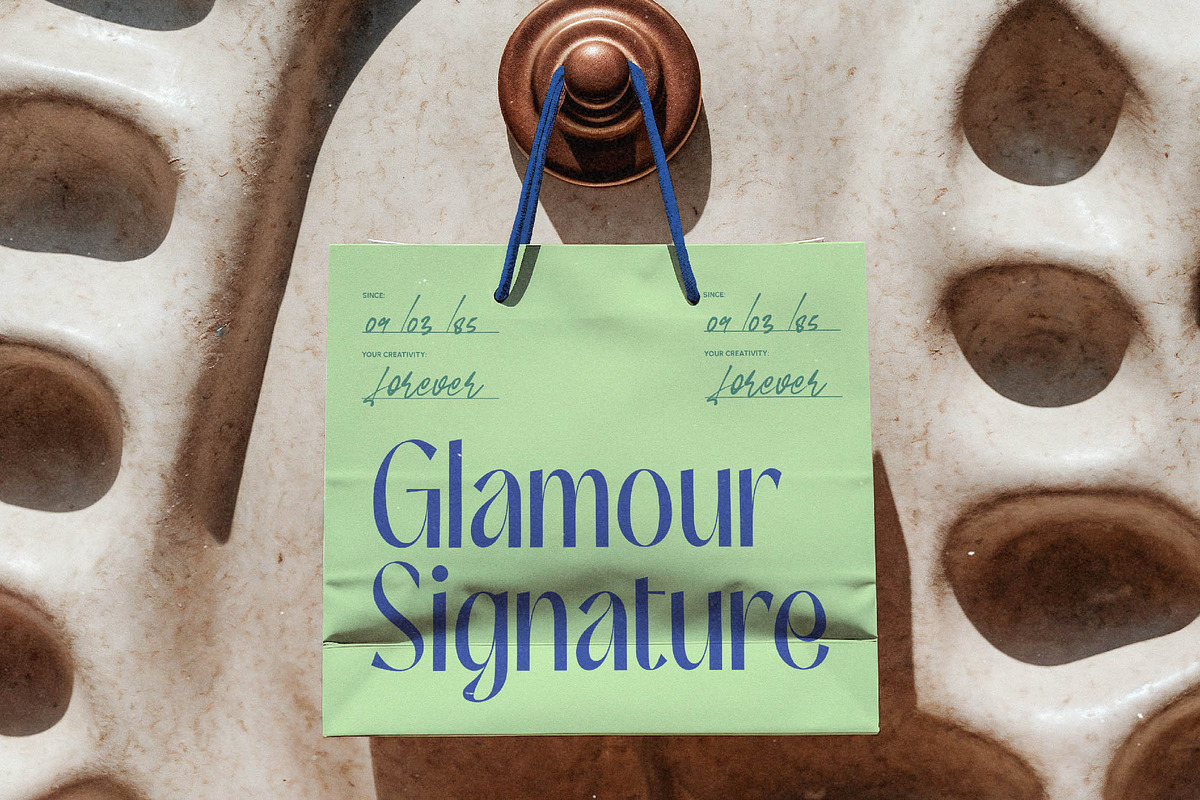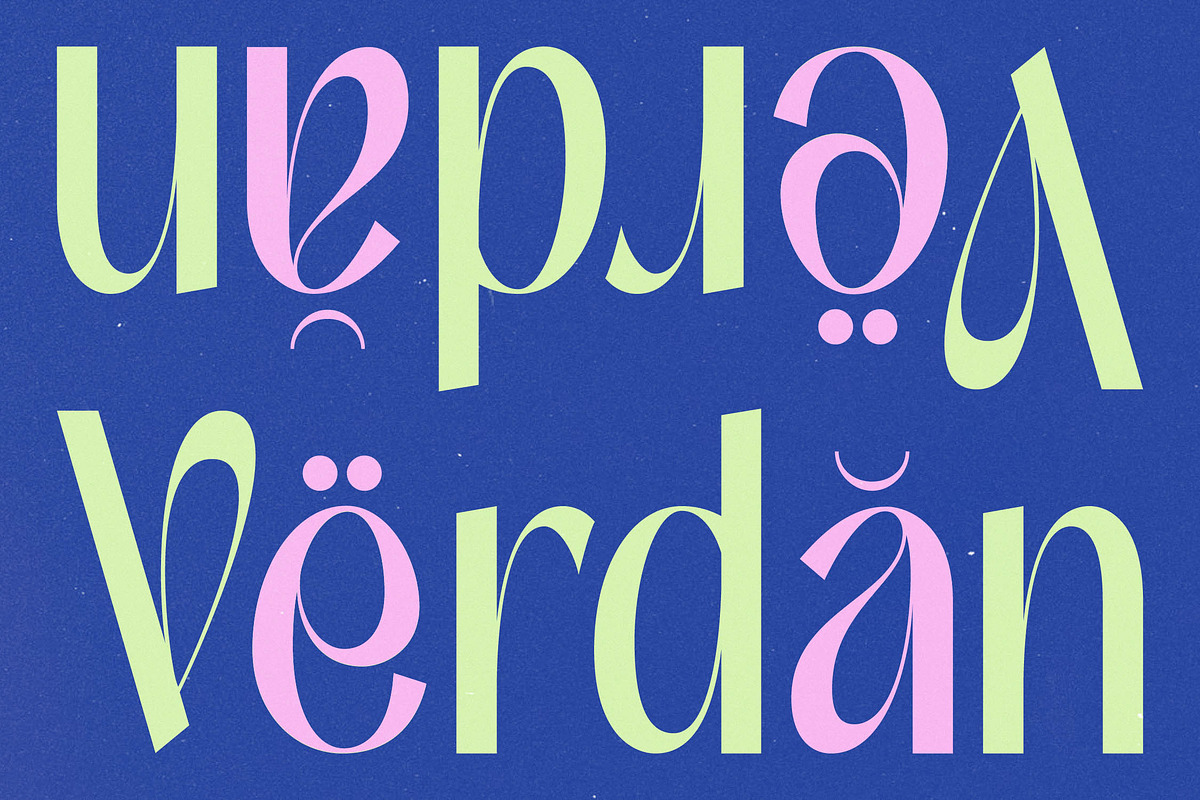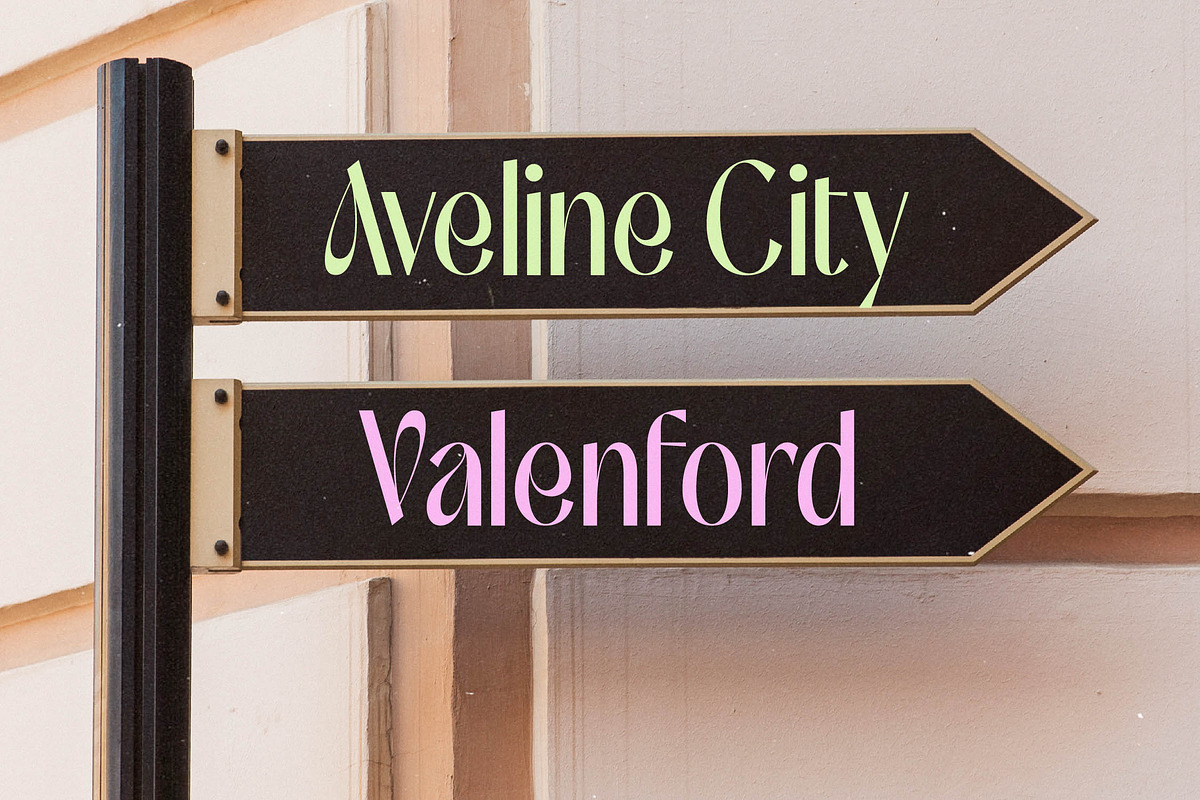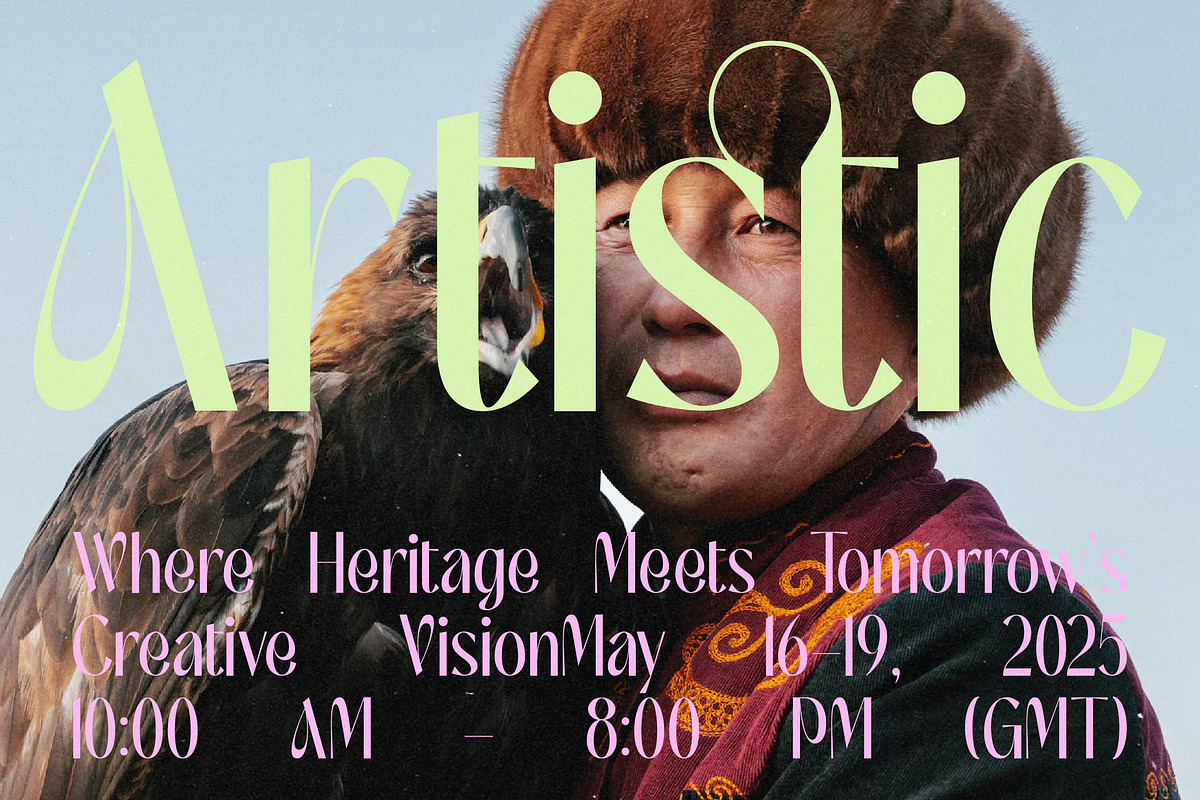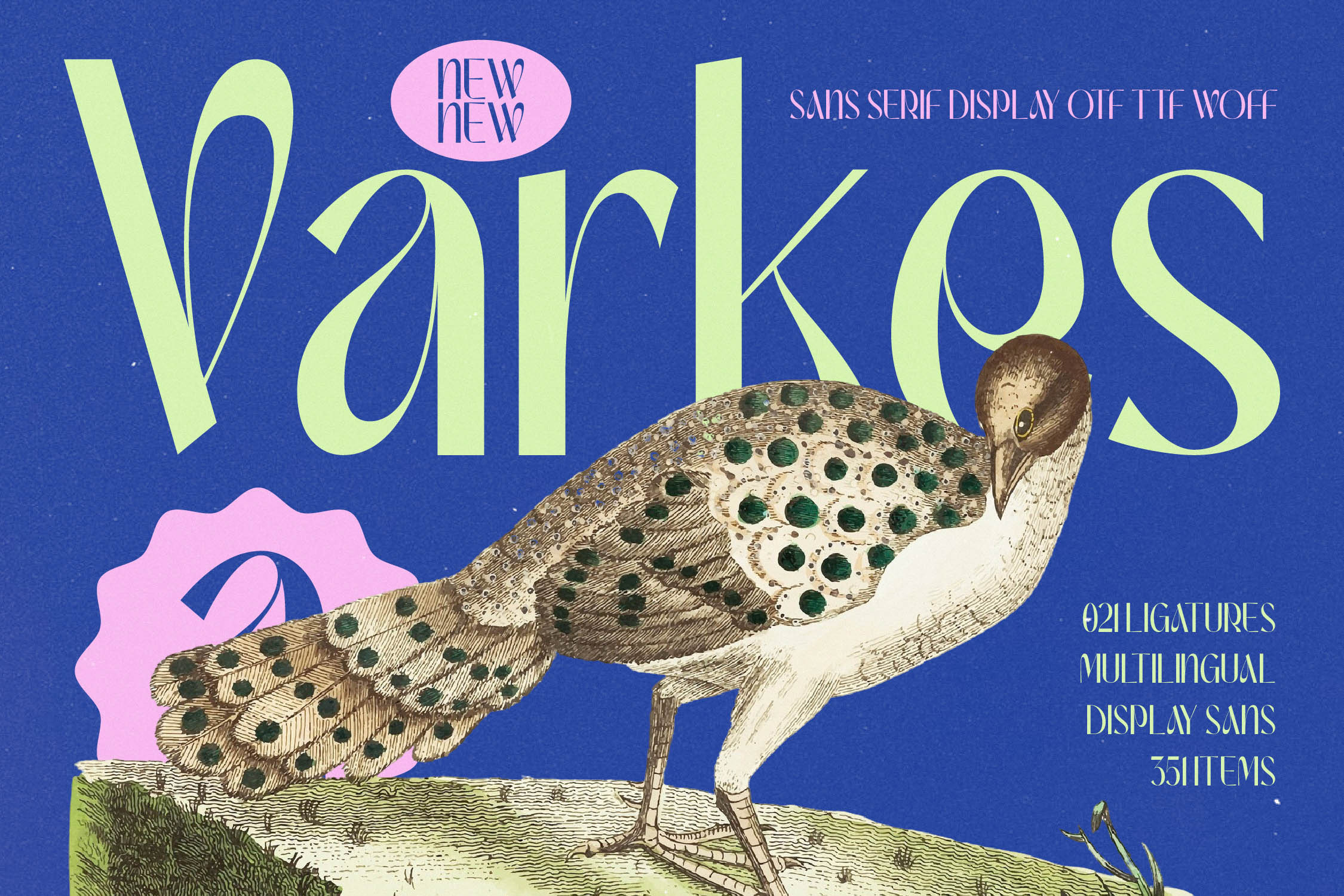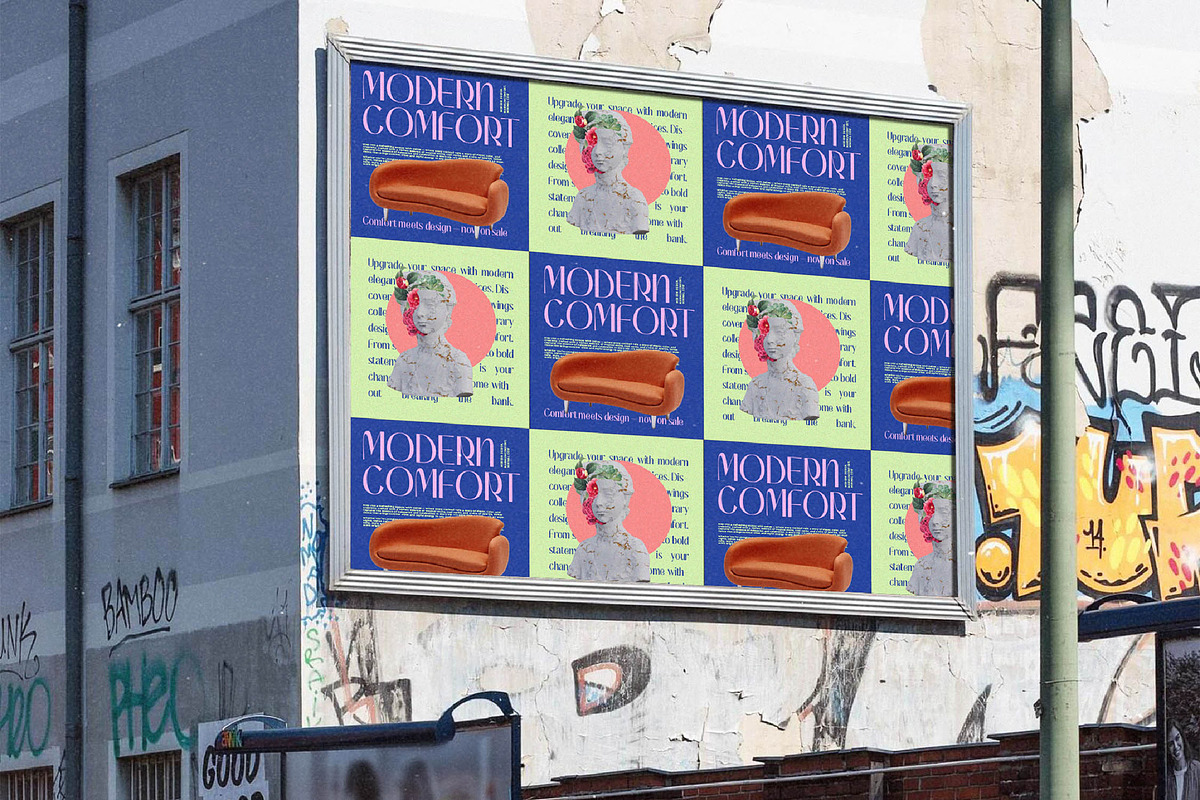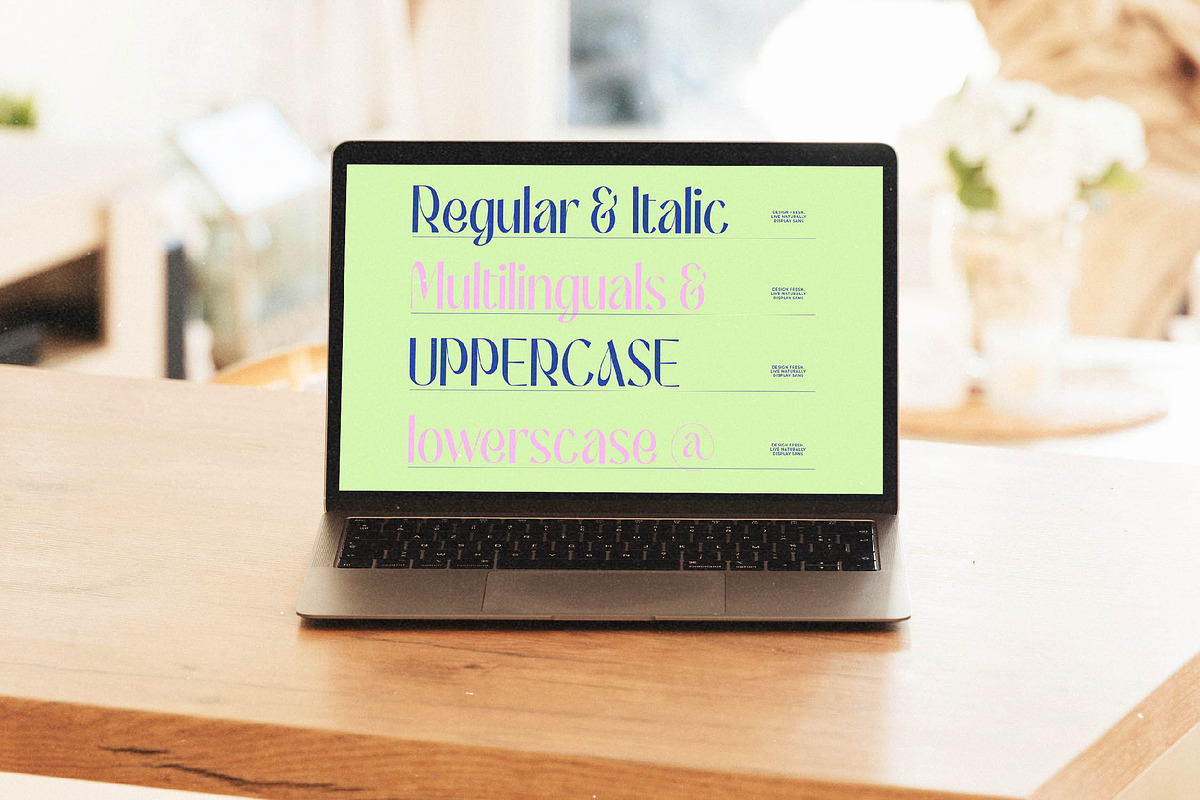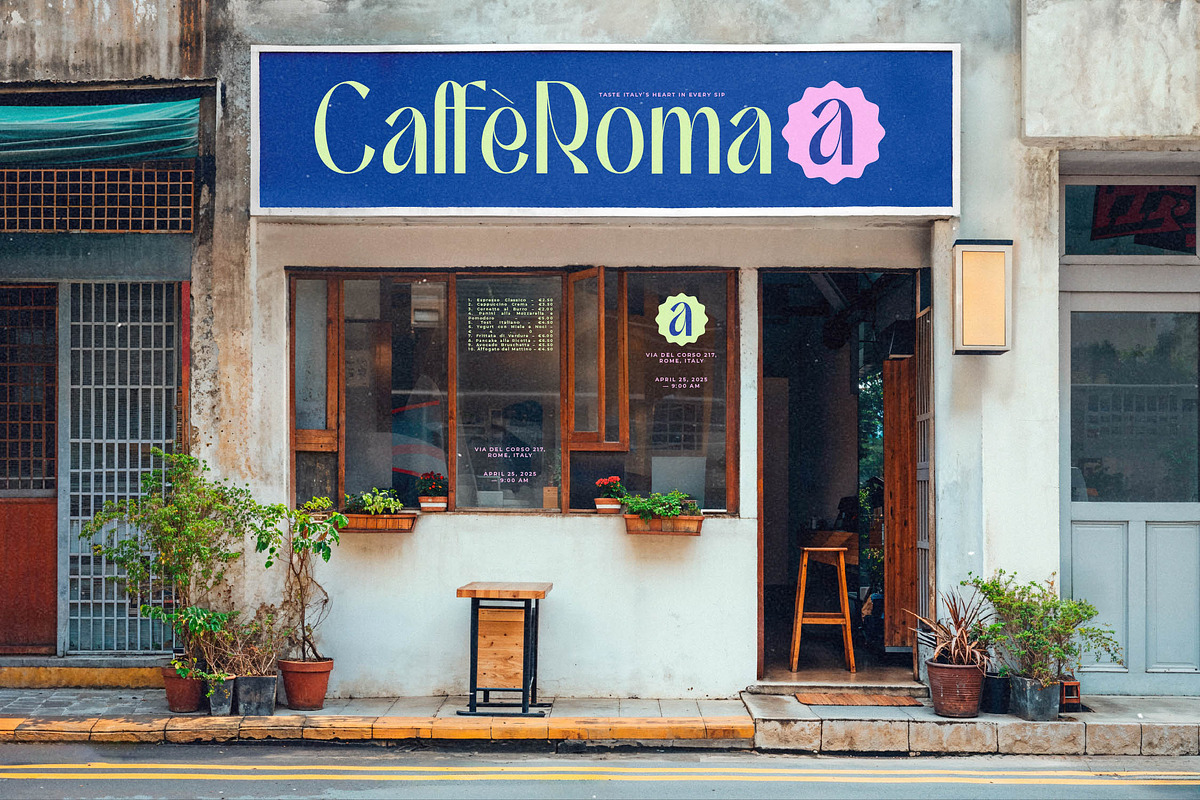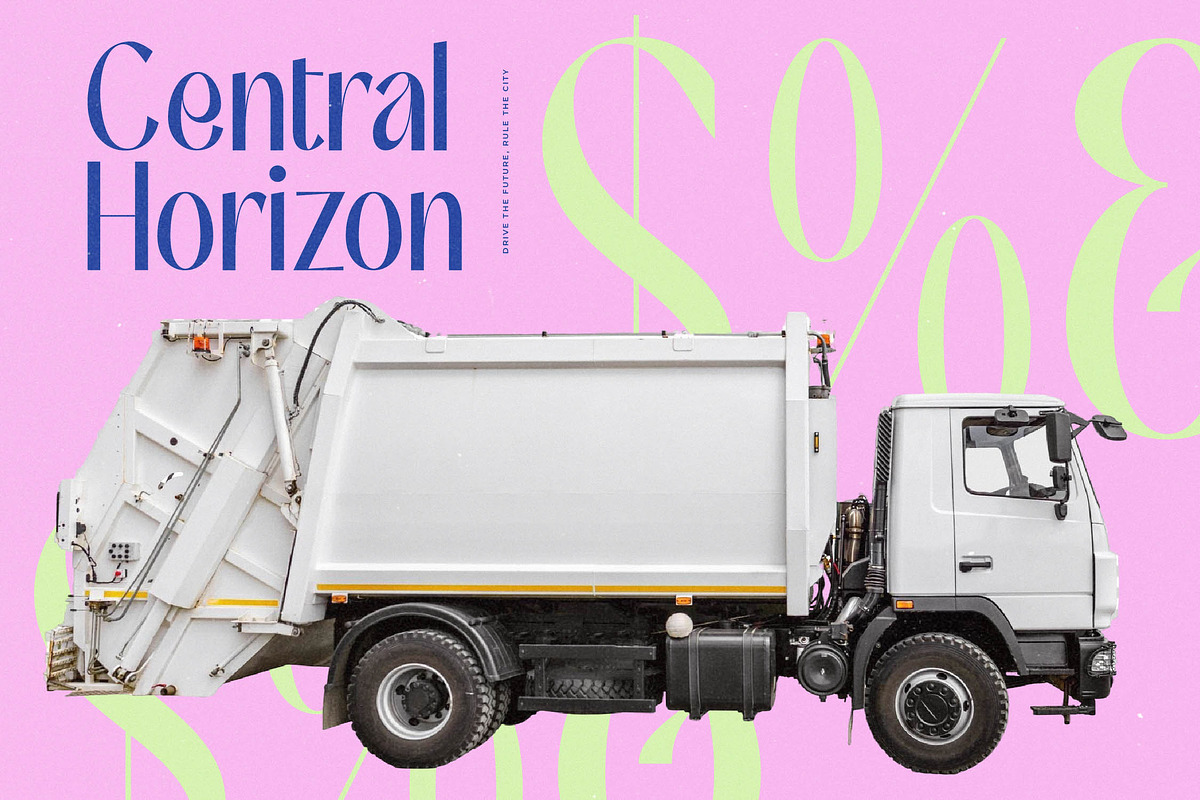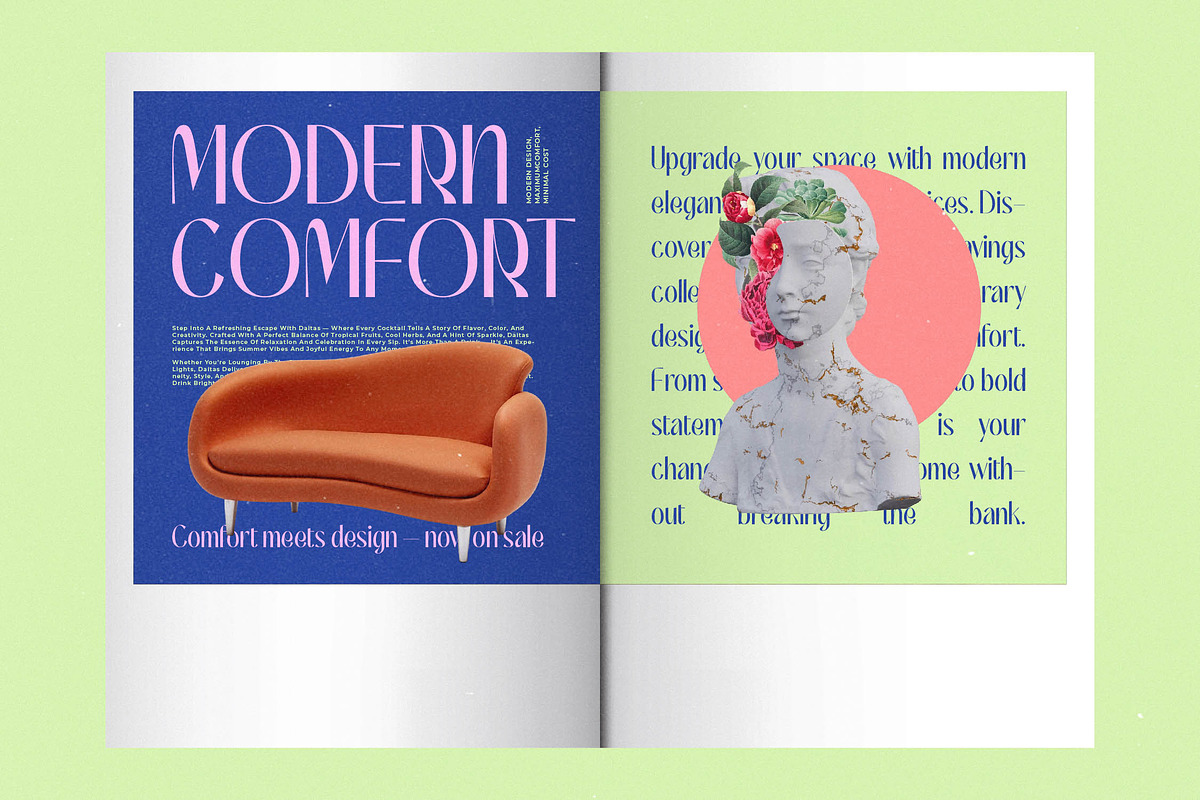
Varkes Elegant Display Typeface
Varkes is a stunning exploration of high-contrast forms, where elegance meets a bold, contemporary edge. It is designed to transform ordinary layouts into sophisticated visual experiences that linger in the viewer's mind.
Inspired by the fluid lines of botanical illustrations and the structured grace of luxury editorial layouts, the typeface reflects a harmonious balance. It captures the essence of modern chic, blending organic movement with precision-cut terminals.
This modern serif display choice brings an undeniable luxury typography feel to every layout through its high-contrast serif elements and fluid character shapes. Designed for maximum branding impact, it functions as a versatile editorial font that bridges the gap between classic beauty and experimental modernism.
Perfectly aligned with the current modern serif trend, this typeface meets the demand for editorial display fonts that offer more than just legibility. It leans into the move toward character-driven typography, where every letterform serves as a unique piece of art within a digital or print landscape.
From high-concept logo design and upscale branding to sophisticated editorial spreads, this font excels in diverse environments. It is a natural fit for boutique packaging, romantic wedding stationery, and the fast-paced world of fashion advertising.
The extensive character set includes a massive library of ligatures and creative alternates that allow for deep customization. With fluid swashes and full multilingual support, including international characters, it ensures your message reaches a global audience with flawless style.